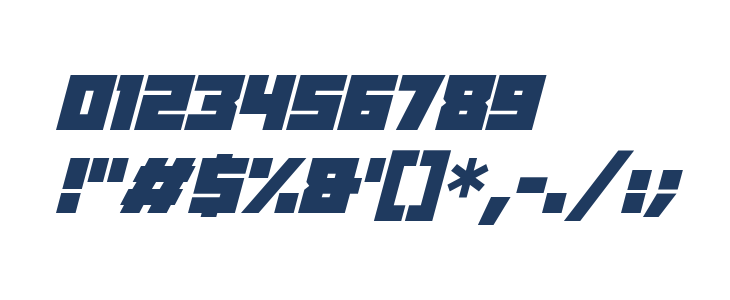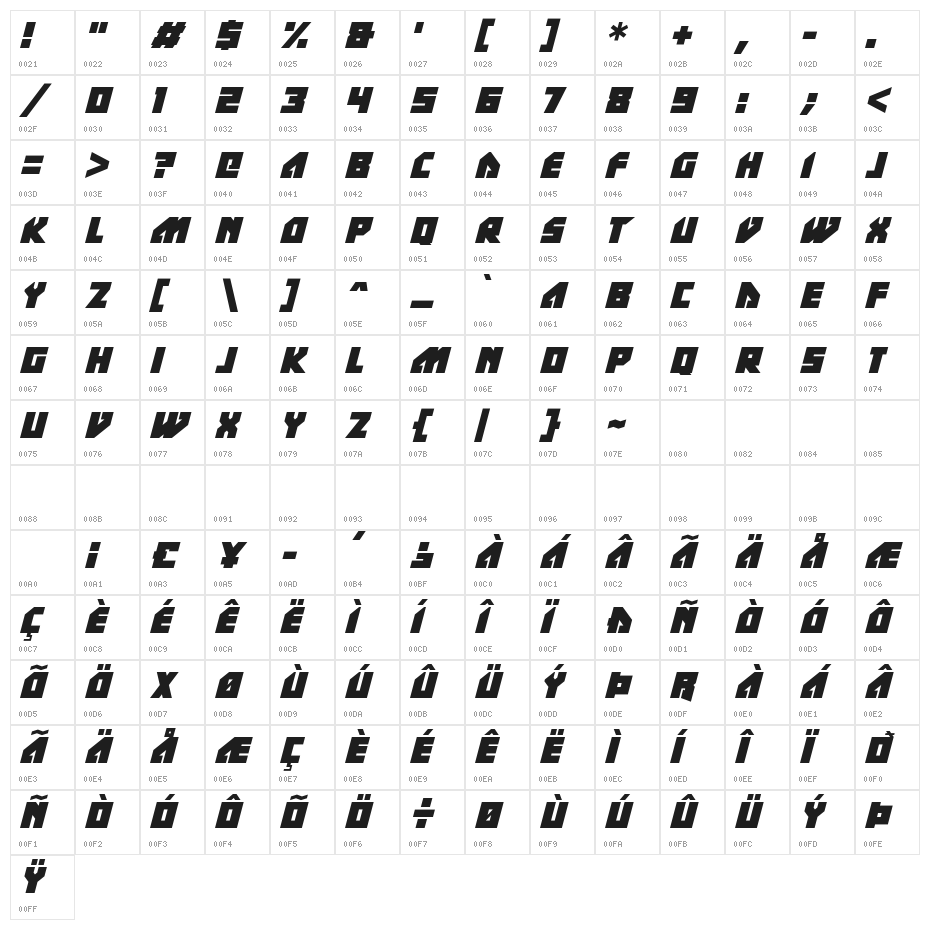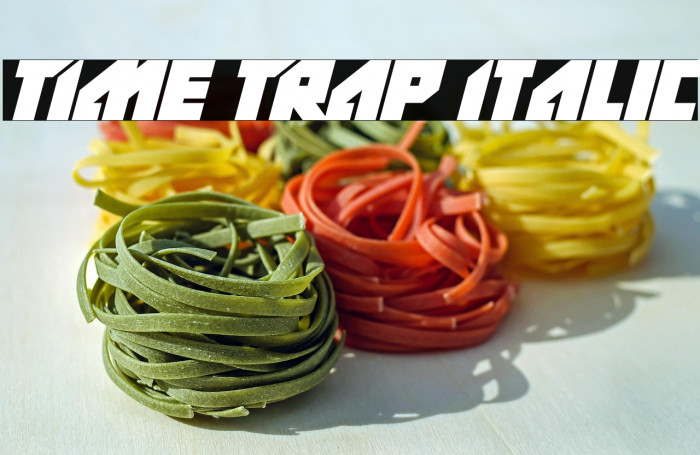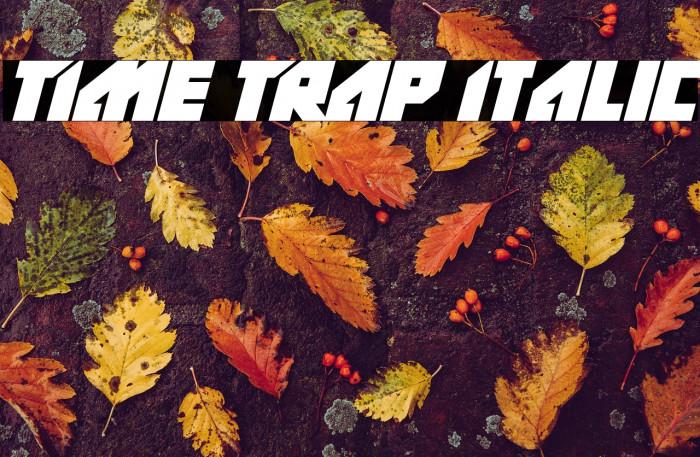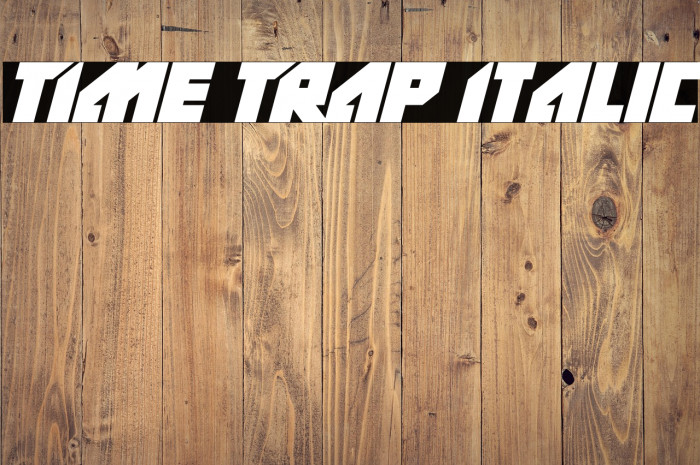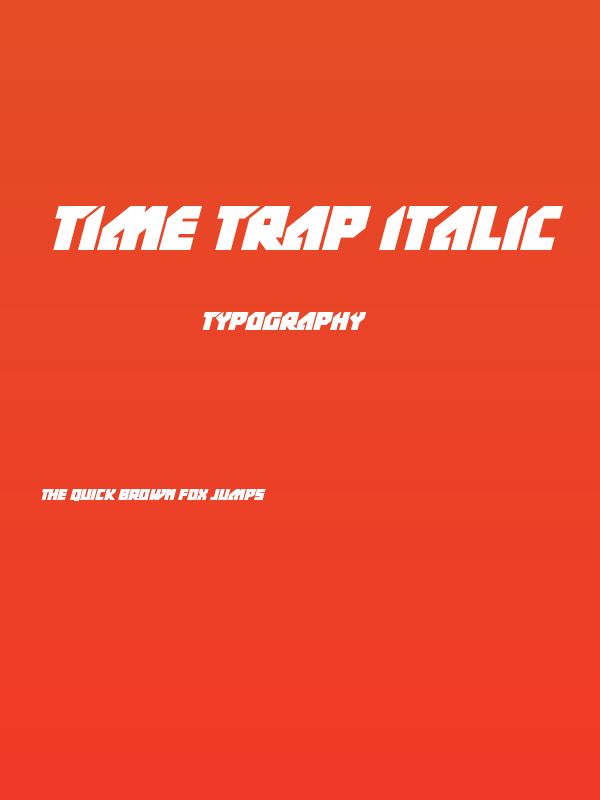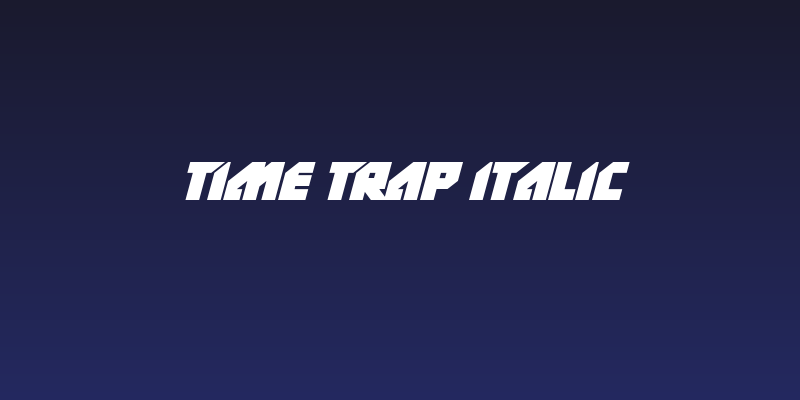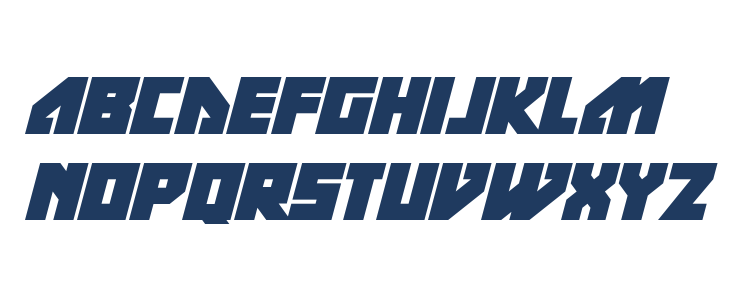
TIme TRap Italic Font
TIme TRap Italic Description
This font features a bold, angular design with a futuristic and dynamic appearance. The characters are sharply cut with distinct edges, creating a sense of movement and speed. The uppercase and lowercase letters maintain a consistent style, with the lowercase mirroring the uppercase in form. Numbers and special characters are designed to match the bold and angular theme, ensuring uniformity across all glyphs. The font's italic slant adds to its dynamic nature, making it ideal for projects that require a modern and energetic look.
| Proposed Projects | Ideal for sci-fi themed designs, video game titles, tech branding, and dynamic posters. |